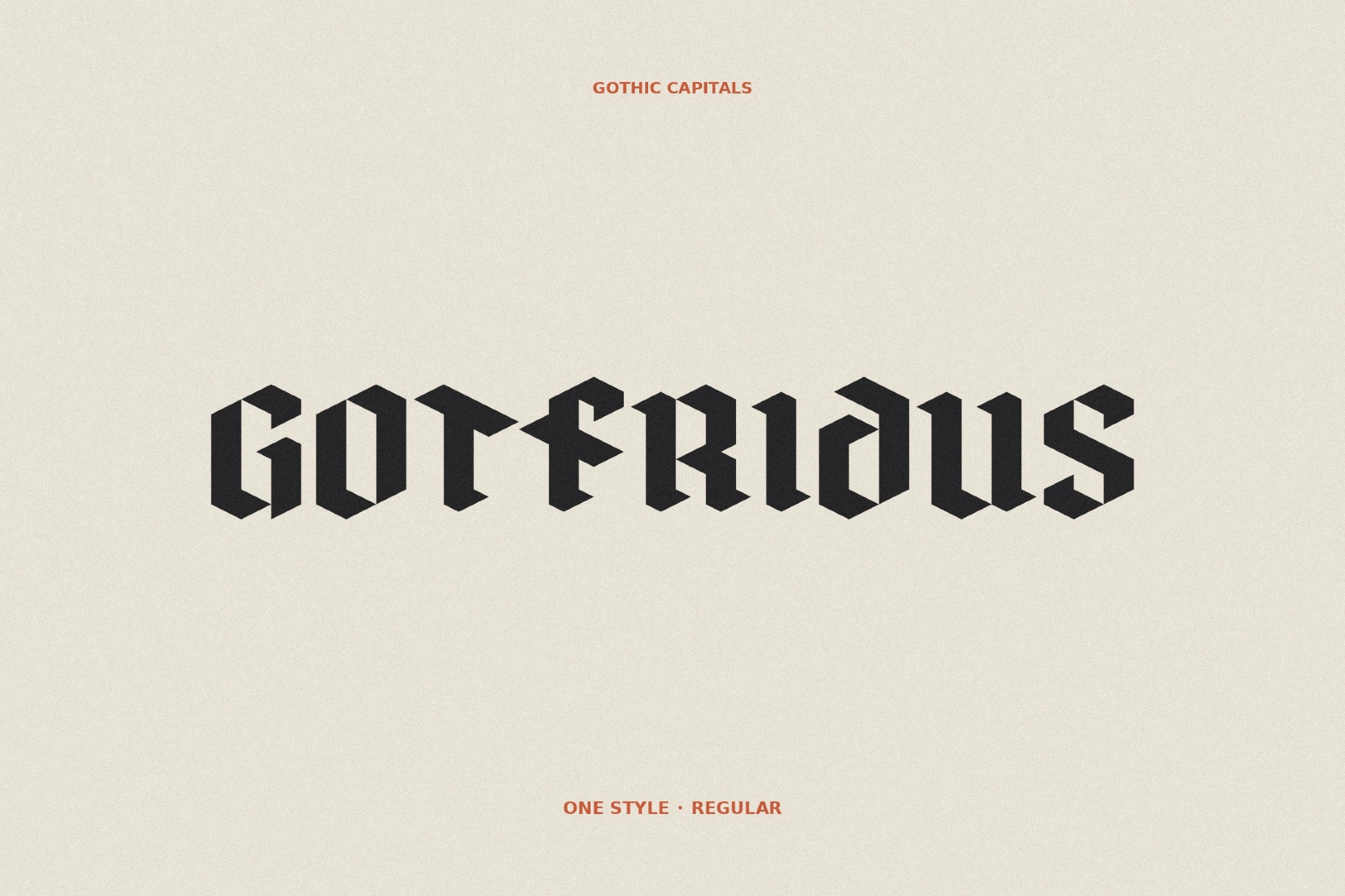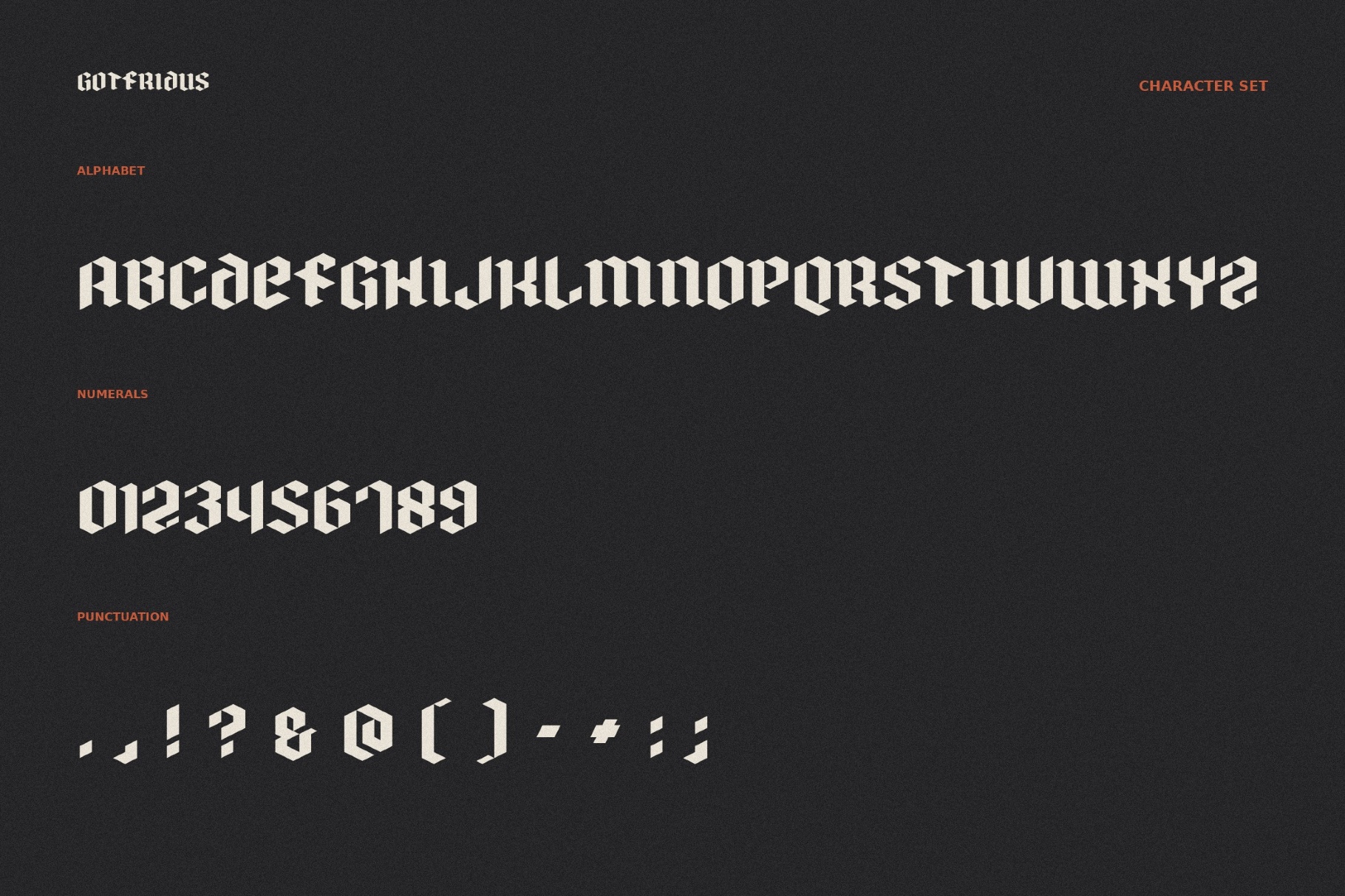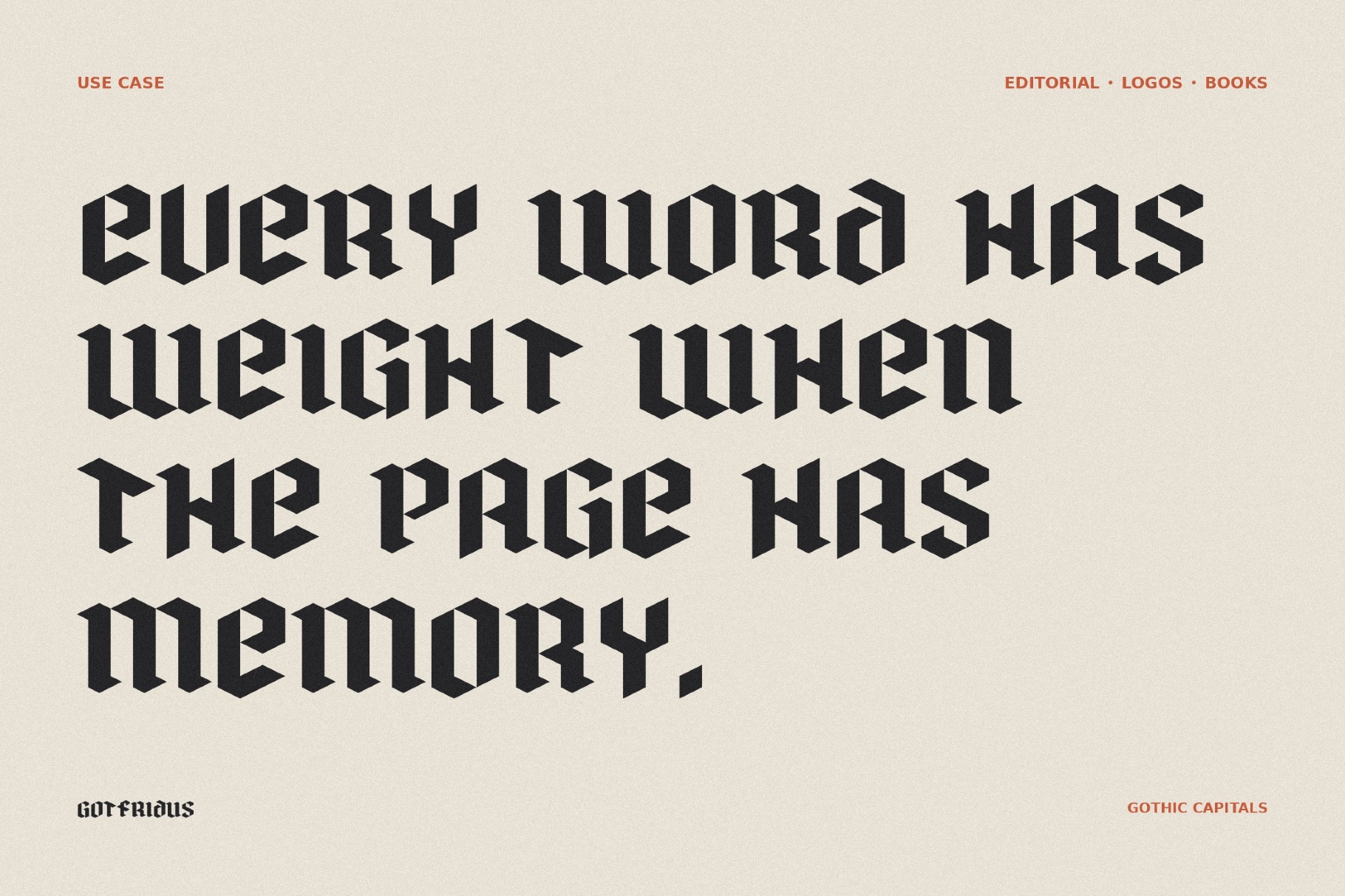
Gotfridus - Medieval Gothic Font
Gotfridus
Heavy verticals, tight spacing, and angular cuts give Gotfridus the impression of a title stamped into iron above an unfriendly tavern door. The font's compact blackletter rhythm pulls from Gothic manuscripts, heraldic banners, medieval pub signs, metal album typography, and ceremonial lettering. All this makes it a strong fit for fantasy game logos, brewery labels, tattoo graphics, dark apparel prints, book covers, festival posters, social media banners, and event branding.